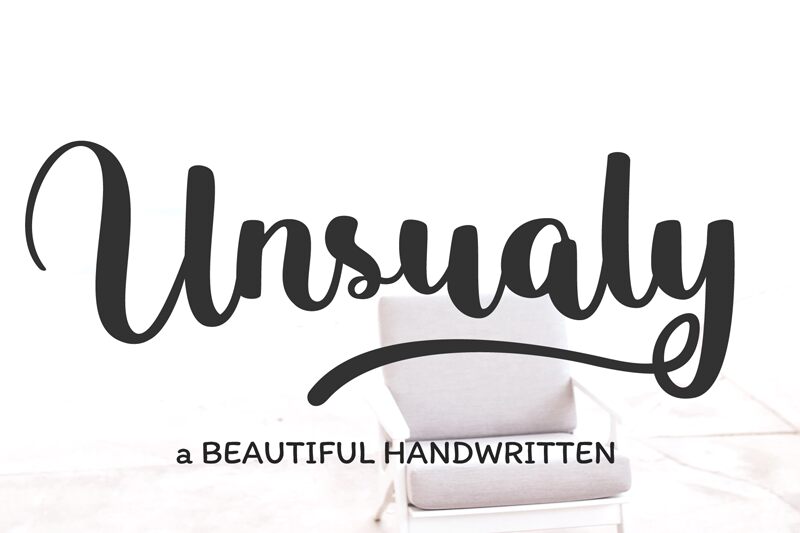
Unusually is a calligraphic semi-bold font designed by Bearytype that adds just the right touch of elegance to any project. Its unique strokes and curves make it perfect for wedding invitations, greeting cards, and any other formal event where you want to impress your guests. But don't let its fancy appearance fool you - Unusually is also versatile enough to be used in branding projects, book covers, and even social media graphics.